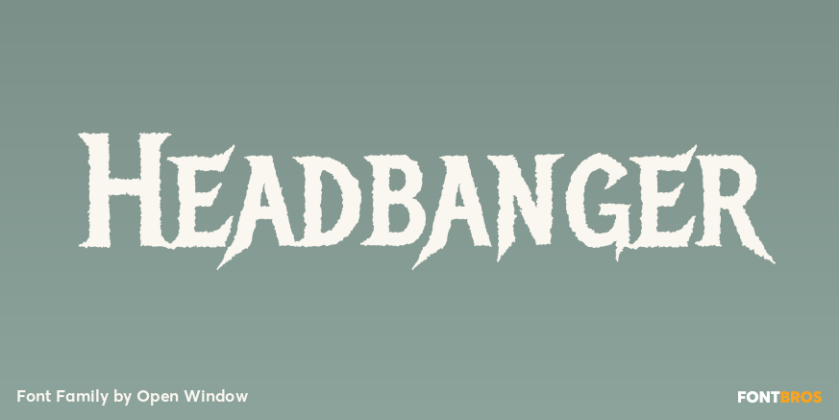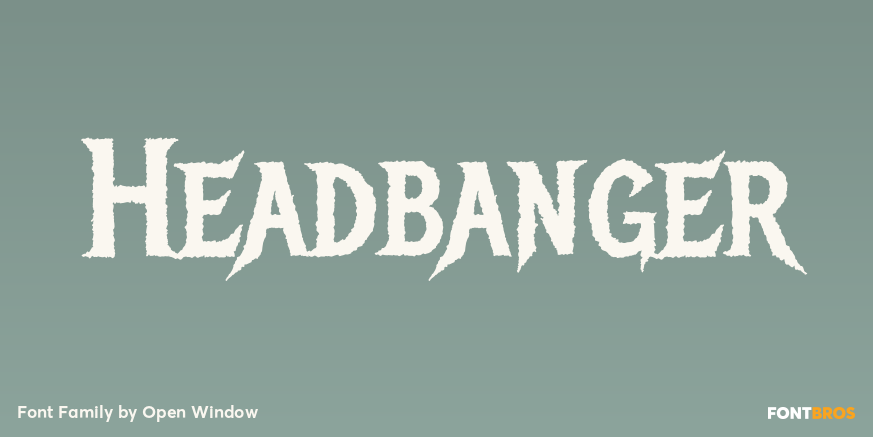
About Headbanger
Headbanger was inspired by lots of Heavy Metal album covers and posters. Only the most ?Metal? elements were combined to make the quintessential Heavy Metal font. Looks good on concert posters and guitar picks! Long live Headbanger. First drawn were…